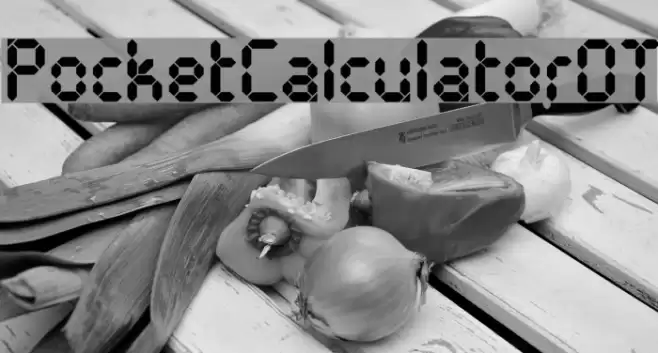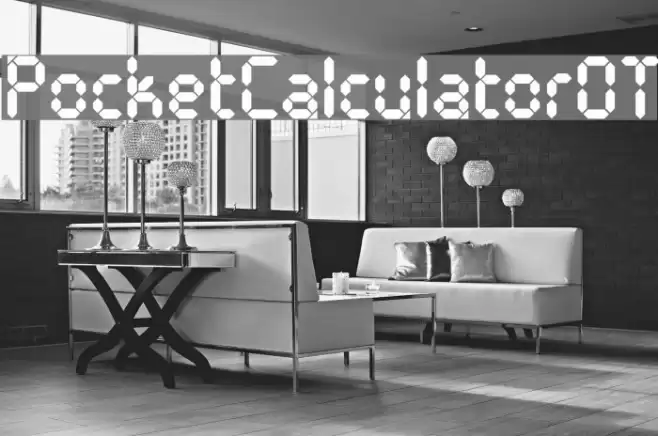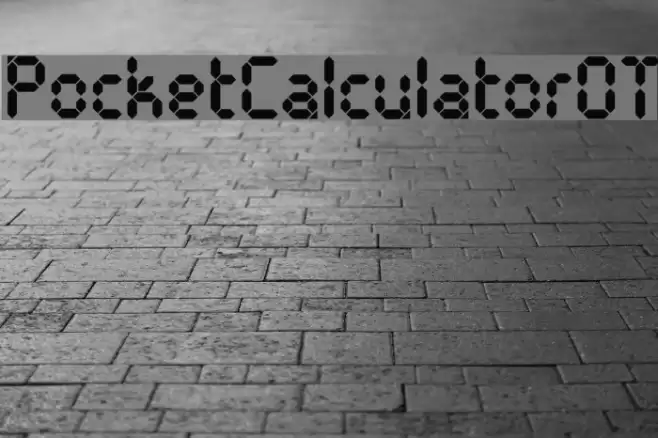
PocketCalculatorOT Font
PocketCalculatorOT Description
This font is inspired by the digital displays of classic pocket calculators, featuring a segmented, geometric design that mimics the look of LED or LCD screens. Each character is constructed from a series of angular segments, creating a blocky and technical appearance. The uppercase and lowercase letters, as well as numbers and special characters, maintain a consistent style that emphasizes clarity and readability. The font's unique aesthetic makes it ideal for projects that require a retro or tech-inspired look, while its structured form ensures legibility even at smaller sizes.
A segmented, geometric font inspired by classic calculator displays from Uncategorized fonts.
- Proposed Projects: Ideal for retro-themed designs, tech-related projects, digital interfaces, and educational materials.
- Overall Style: Retro, Technical
- Use Case: Headlines, Logos, Digital Interfaces